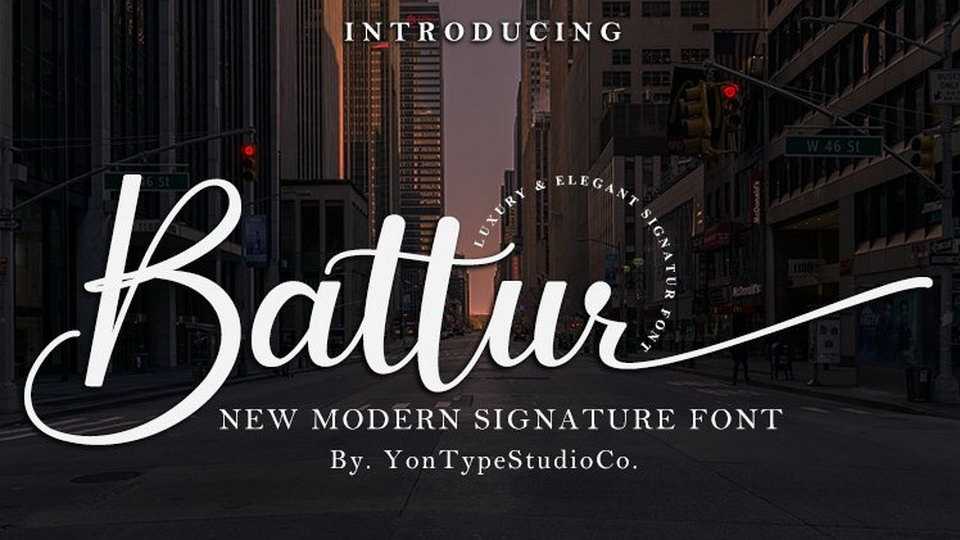
Download Battur font, a beautiful modern calligraphy script with a charming look. Battur is best used for logos, wedding stationery, social media, and quotes.
Designer: YonTypeStudioCo